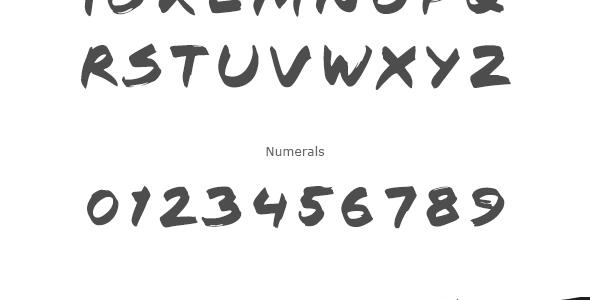
Chocolate and Chilies Font
Chocolate and Chilies Handwritten Font drawn with rough marker pen. It gives a complete authentic feel on your text. Suitable for various design project. Total 312 glyphs are included including alphabets, numerals and special characters. Both TTF and OTF file available. Underlines are available on AI file. Exclusively on graphicriver.